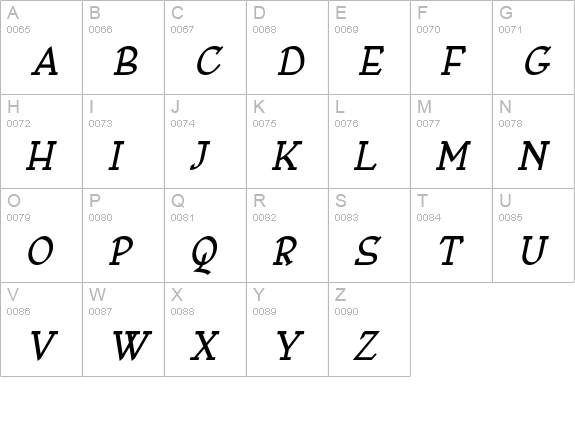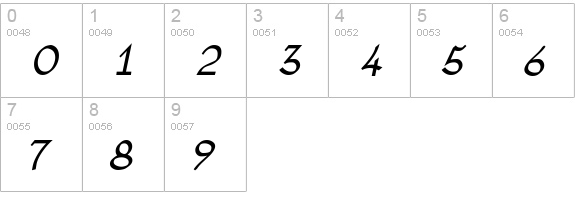
Anarckhie BoldItalic is a striking and dynamic font that exudes a sense of rebelliousness and individuality. Its bold, italicized design commands attention and makes a bold statement in any project. The unique styling of Anarckhie BoldItalic adds a touch of edginess and modernity, making it a perfect choice for projects that require a bold and impactful font. This font is not only visually appealing but also versatile, making it suitable for a wide range of design applications, from posters and flyers to logos and branding. The bold strokes and italicized lettering of Anarckhie BoldItalic give it a sense of energy and movement, making it a great choice for designs that need to stand out and make a statement. Best of all, Anarckhie BoldItalic is available for free download at FontsMarket.com. This means that you can easily access this eye-catching font and use it in your projects without any cost. So why wait? Download Anarckhie BoldItalic today and add a touch of boldness and creativity to your designs.